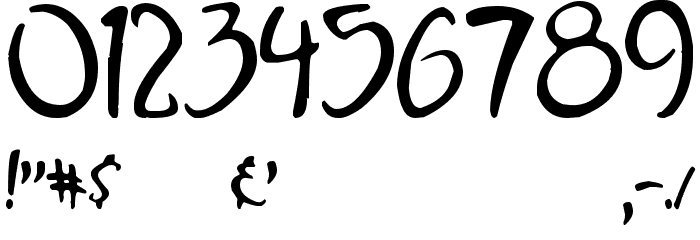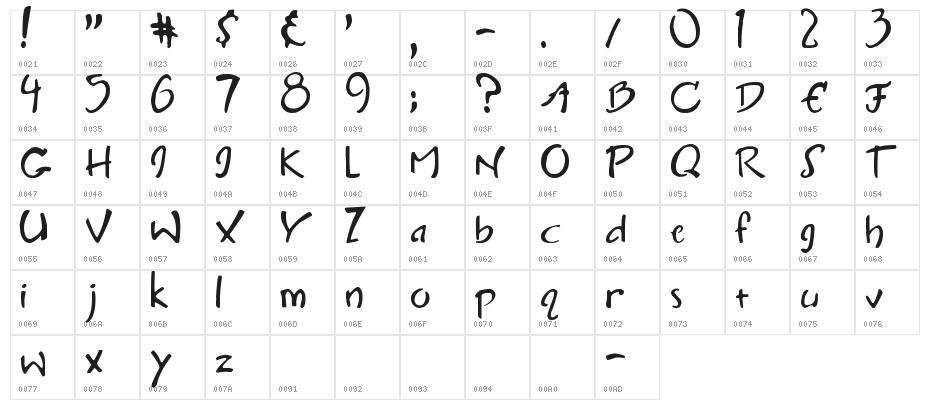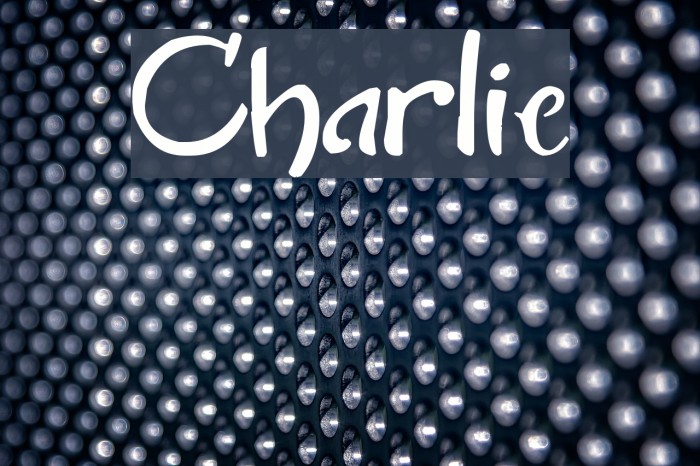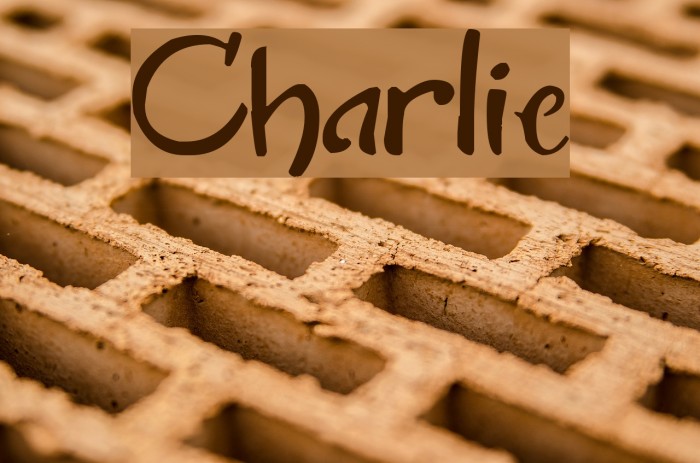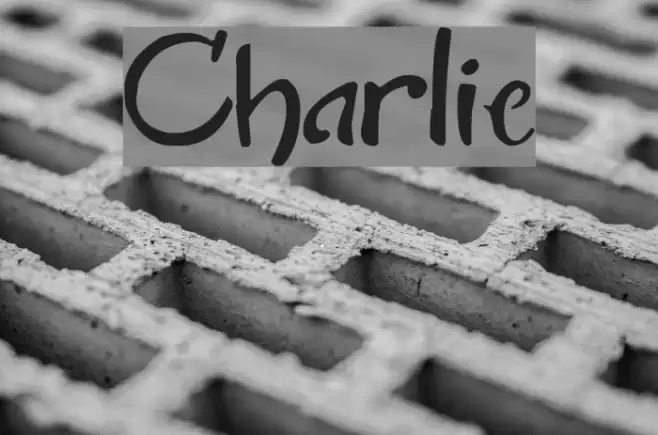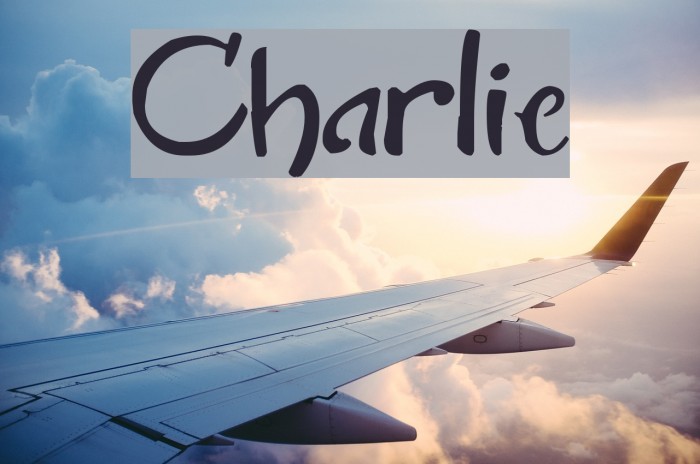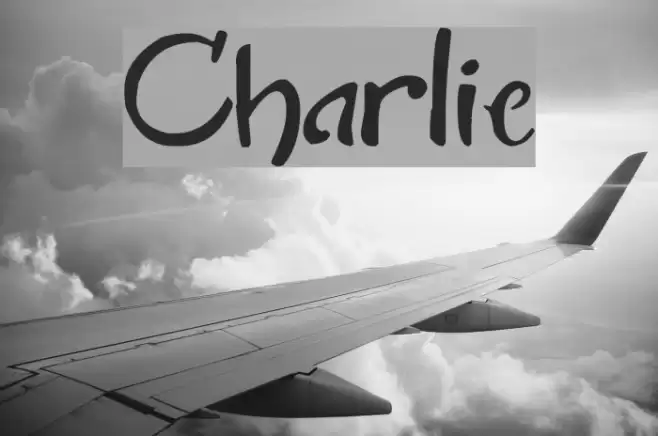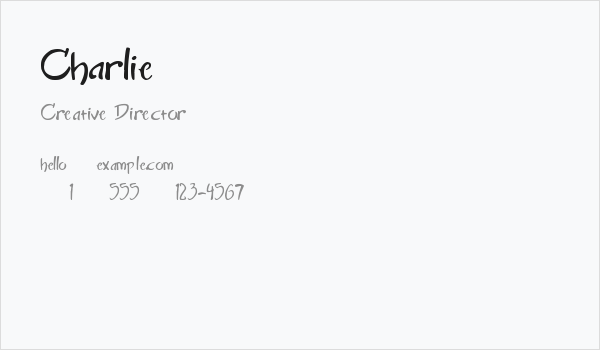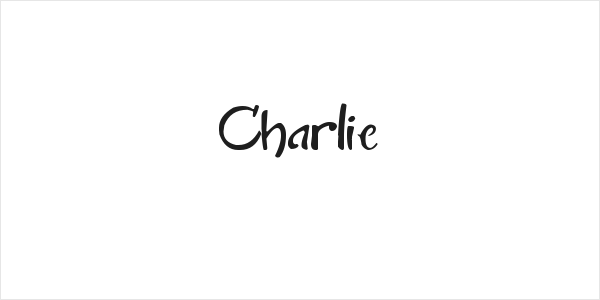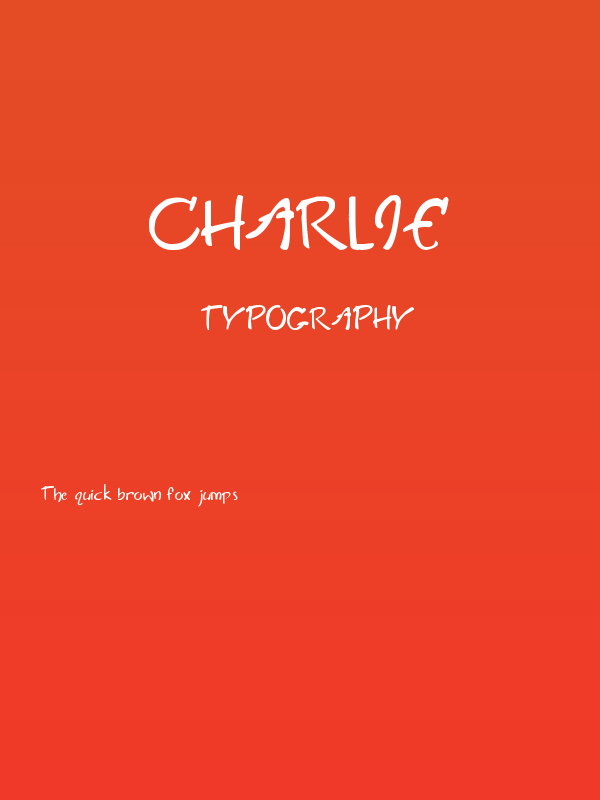
Charlie Font
Charlie Description
This font features a playful and dynamic handwritten style, characterized by its fluid and slightly irregular strokes. The uppercase letters exhibit a whimsical flair with varying stroke widths, while the lowercase letters maintain a consistent yet lively appearance. The numerals are bold and rounded, adding to the font's approachable and friendly vibe. Special characters are creatively integrated, maintaining the overall aesthetic. This font's unique personality makes it suitable for projects that require a touch of creativity and informality.
| Use Case | Logos, Posters, Informal Invitations |
| Proposed Projects | Ideal for greeting cards, children's books, playful branding, and creative posters. |